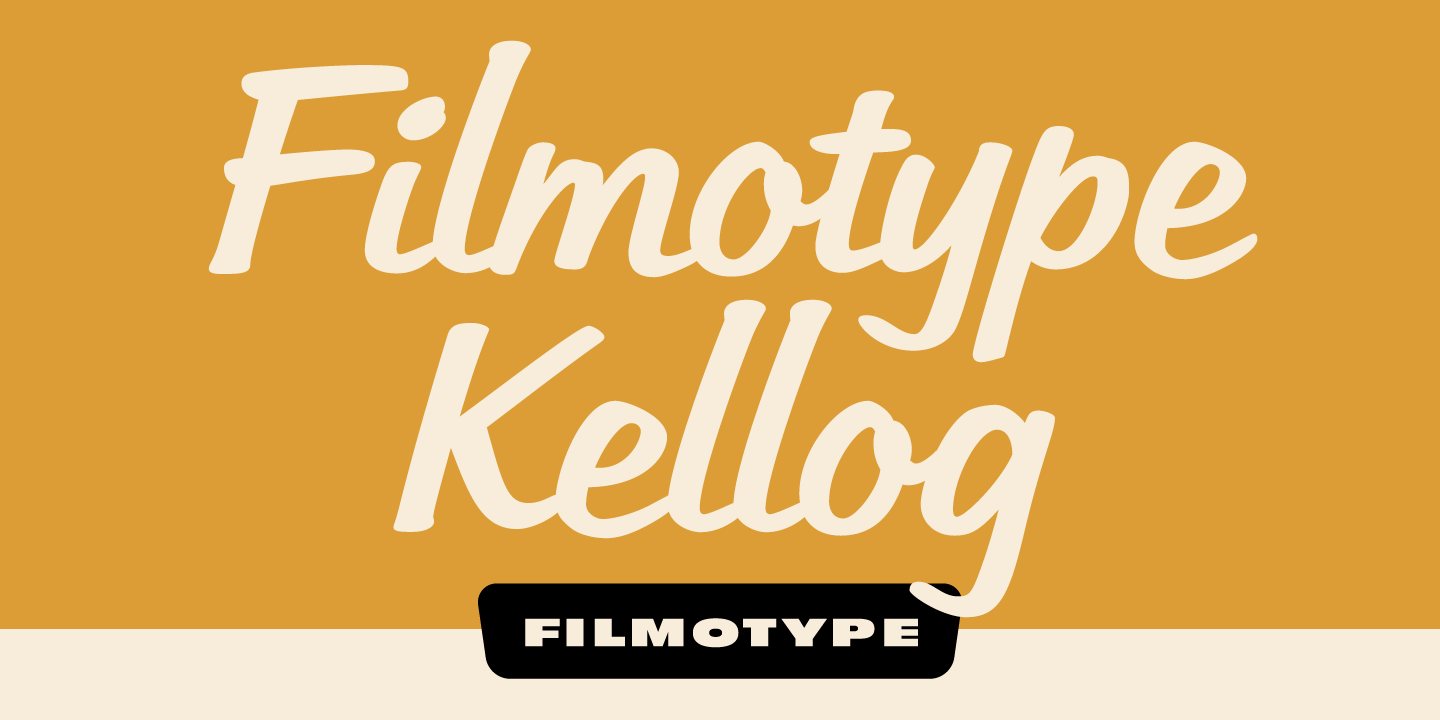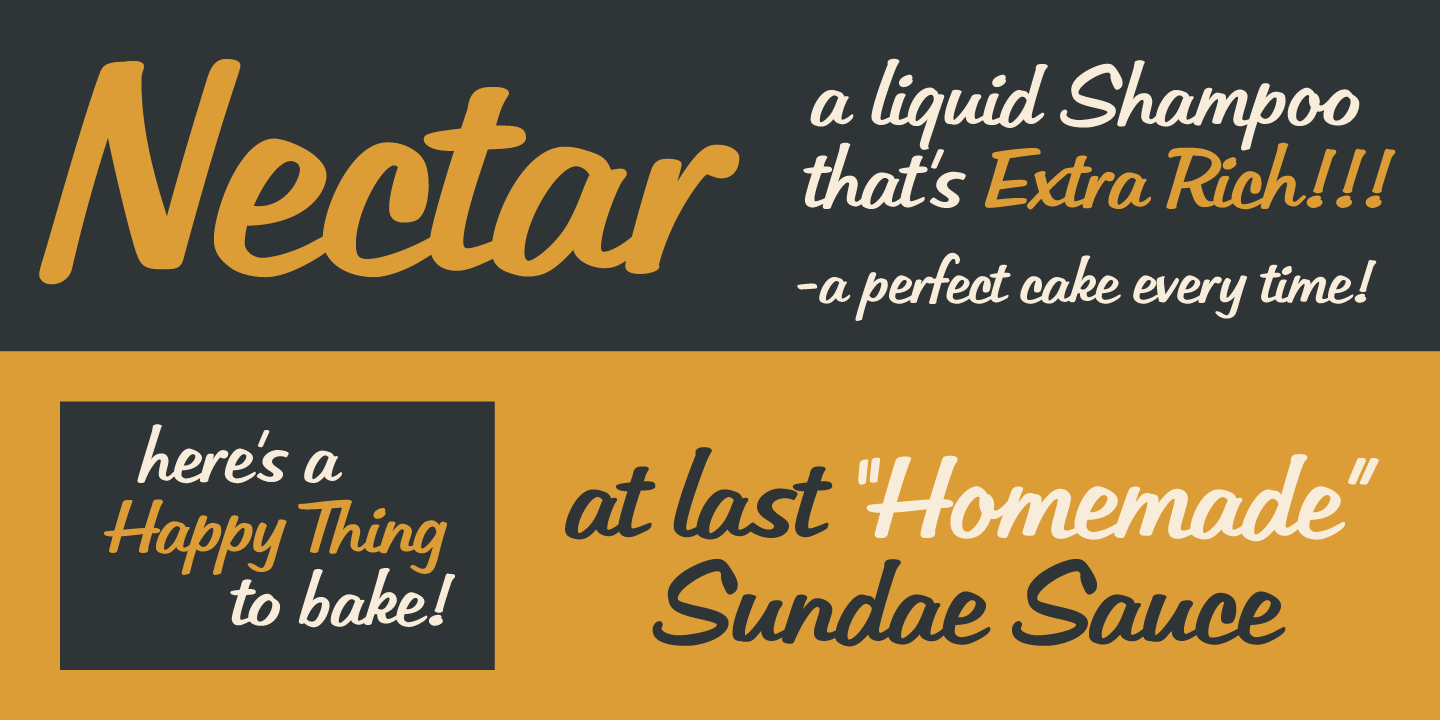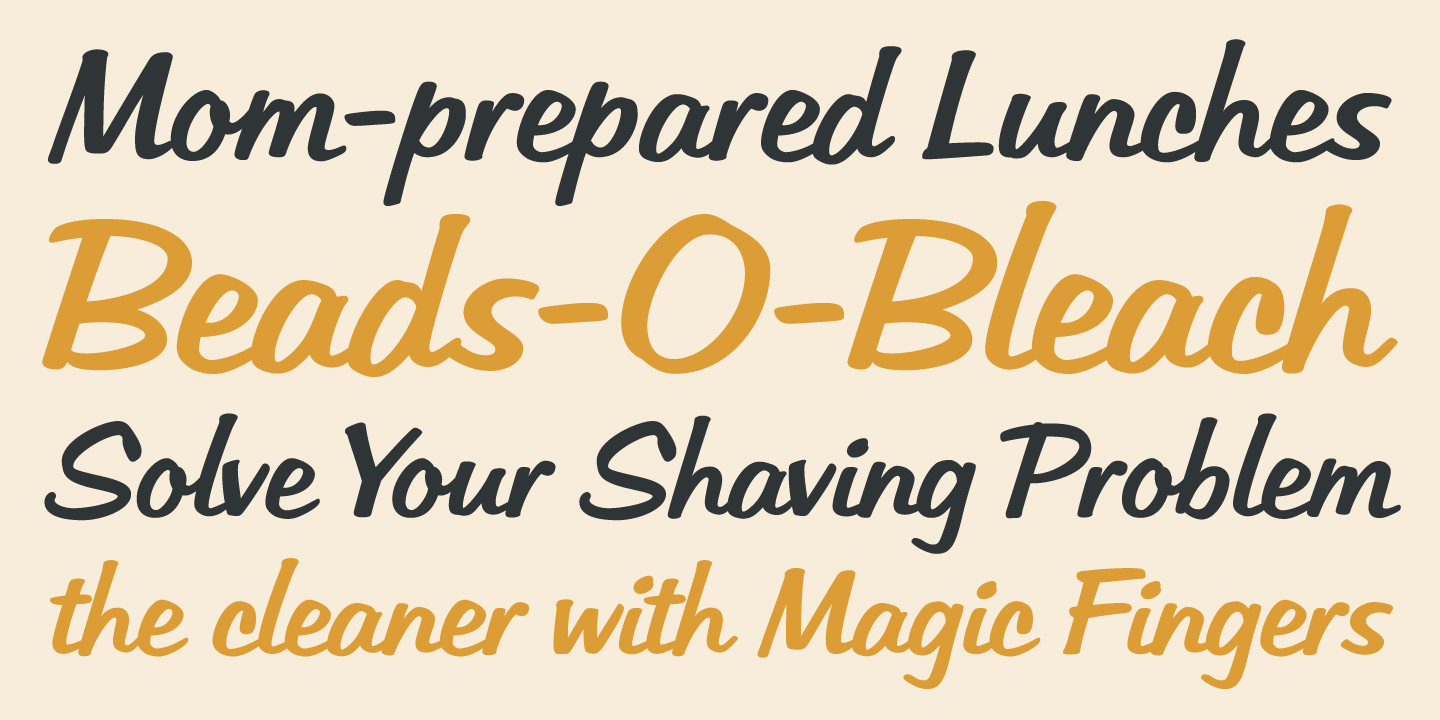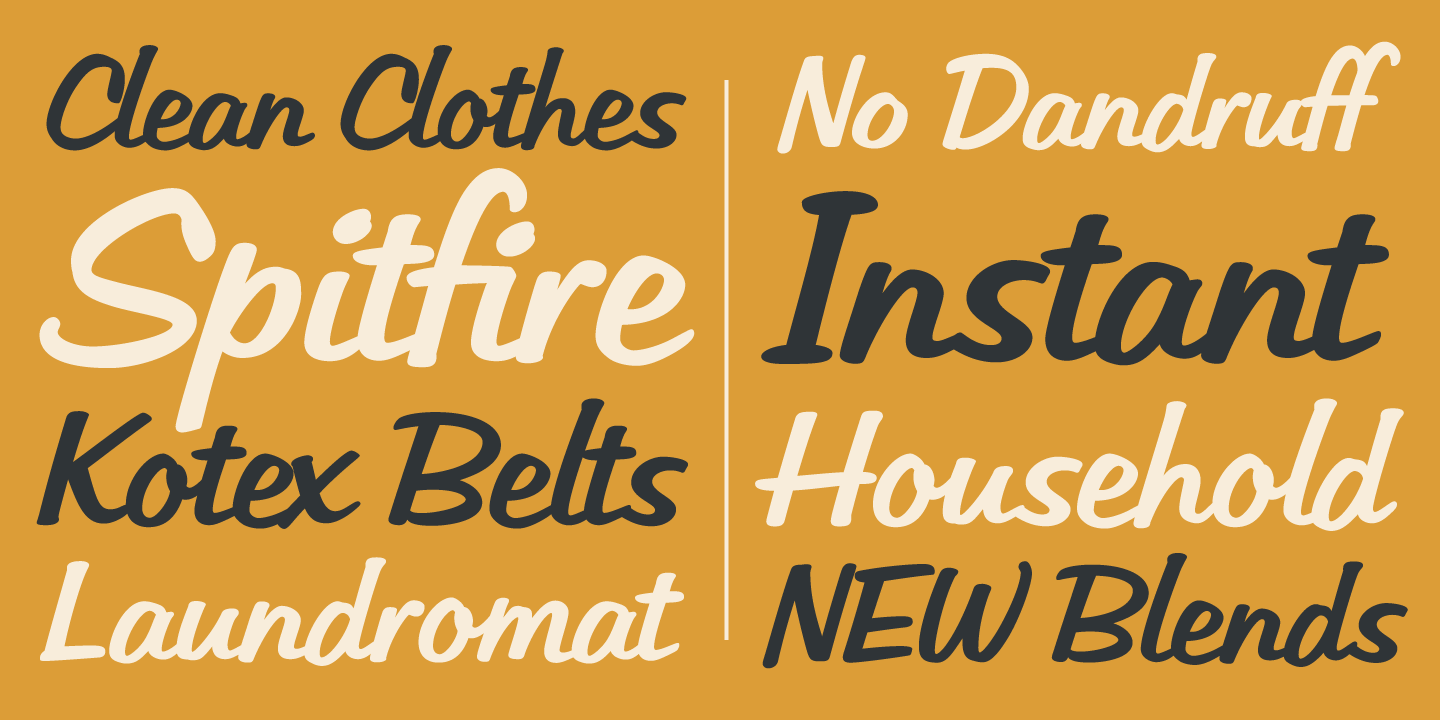
Filmotype Kellog
Released by Filmotype in the late 1950s, Filmotype Kellog expanded its Scripts category with this informal style brush script inspired by sign painter classic brush script styles and expanded to allow a wider line setting. Filmotype Kellog was developed from the original font filmstrips and includes a full international character compliment, automatic fractionals, ordinals, with a complete set of alternate characters and ligatures to allow flawless typesetting in dynamic OpenType format.